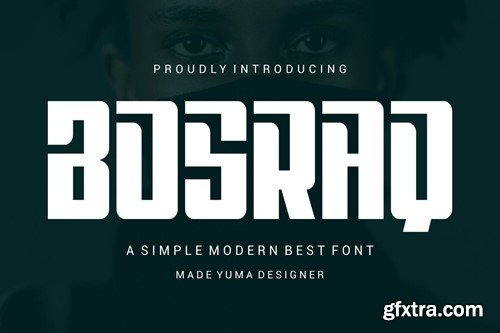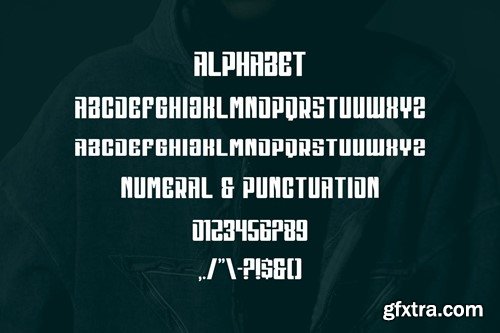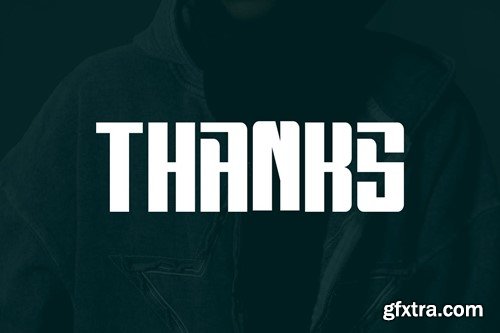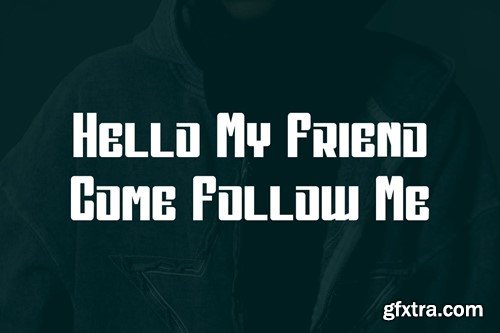
Bosraq - Logotype Display Font
Introducing Bosraq Modern Sans Serif. Bosraq is a modern and simple font, best used as a display for headings, logos, branding, magazines, product packaging and invitations. Bosraq come with clean lines and smooth curves give any project an extra touch of class. What you get: Thank you.